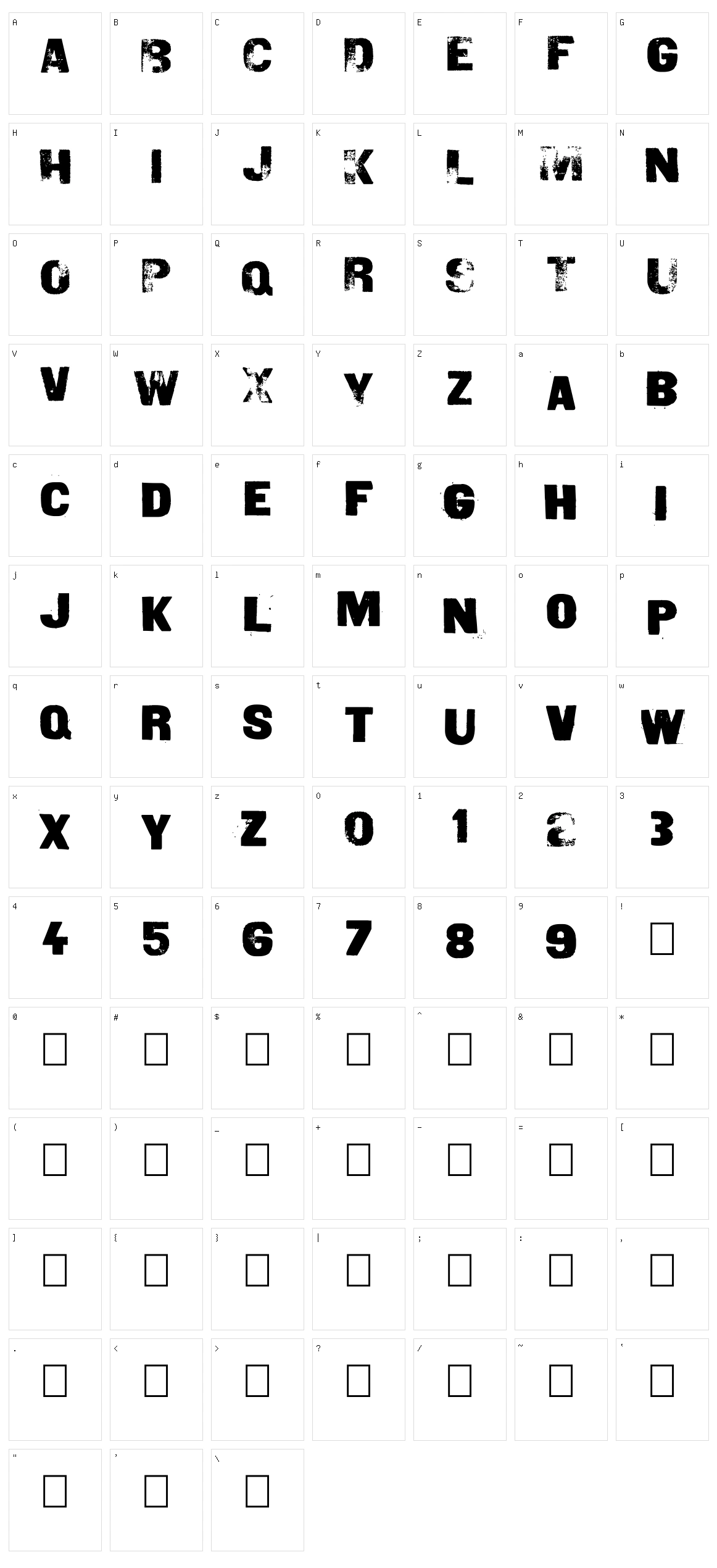
The free font Trash Toys is carefully designed by imagex, showcasing a thoughtful balance of creativity and usability and falls under the Destroy font style. When you download the ZIP file, it contains only 26.41 KB of font files, making it lightweight and quick to download. Please review the license details below to understand permitted usage and distribution rights. If license information is not available, we recommend using this font for personal projects only or contacting the author directly for commercial usage permissions.